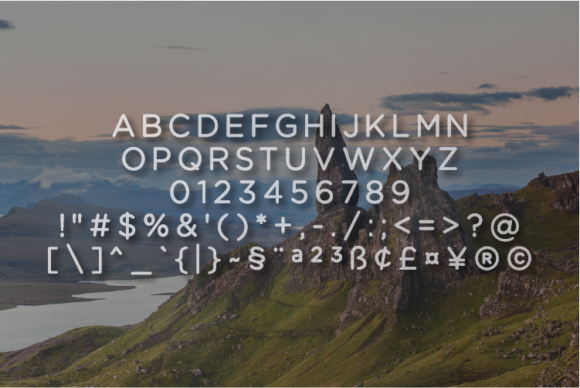
Introduction to Forland Font
Have you ever found yourself staring at a blank page, desperately searching for the perfect font to bring your creative project to life? We’ve all been there. The blank page stares back, taunting us with its emptiness. But what if I told you there’s a font that can change all that? Enter the Forland Font, a beautiful, simple, and incredibly versatile sans serif font that’s about to become your new best friend.
Key Features of Forland Font
- High-quality design for creative projects: Forland Font is a premium font suitable for various design projects, including branding, advertising, and publishing.
- Unique characteristics: The font features a unique blend of modern and vintage elements, making it an excellent choice for designers looking for a distinctive look.
Honest Review: Forland Font
- High-quality font with a clean and modern design.
- Comes in a variety of weights, making it versatile for different design applications.
- Transparent background, which makes it easy to layer and combine with other design elements.
The Forland Font is a solid choice for any designer looking for a high-quality, free font. Its modern design makes it perfect for a range of creative projects, from logos to web design.
- The font may not be suitable for projects that require a more traditional or vintage feel.
- Some users may find the font too minimalist, which can make it difficult to read in certain contexts.
Forland Font
Tips for Getting the Most Out of Forland Font
The Forland Font is perfect for creating high-quality designs for business cards, brochures, and other marketing materials. Its high-quality design and transparent background make it ideal for creating intricate and detailed designs.